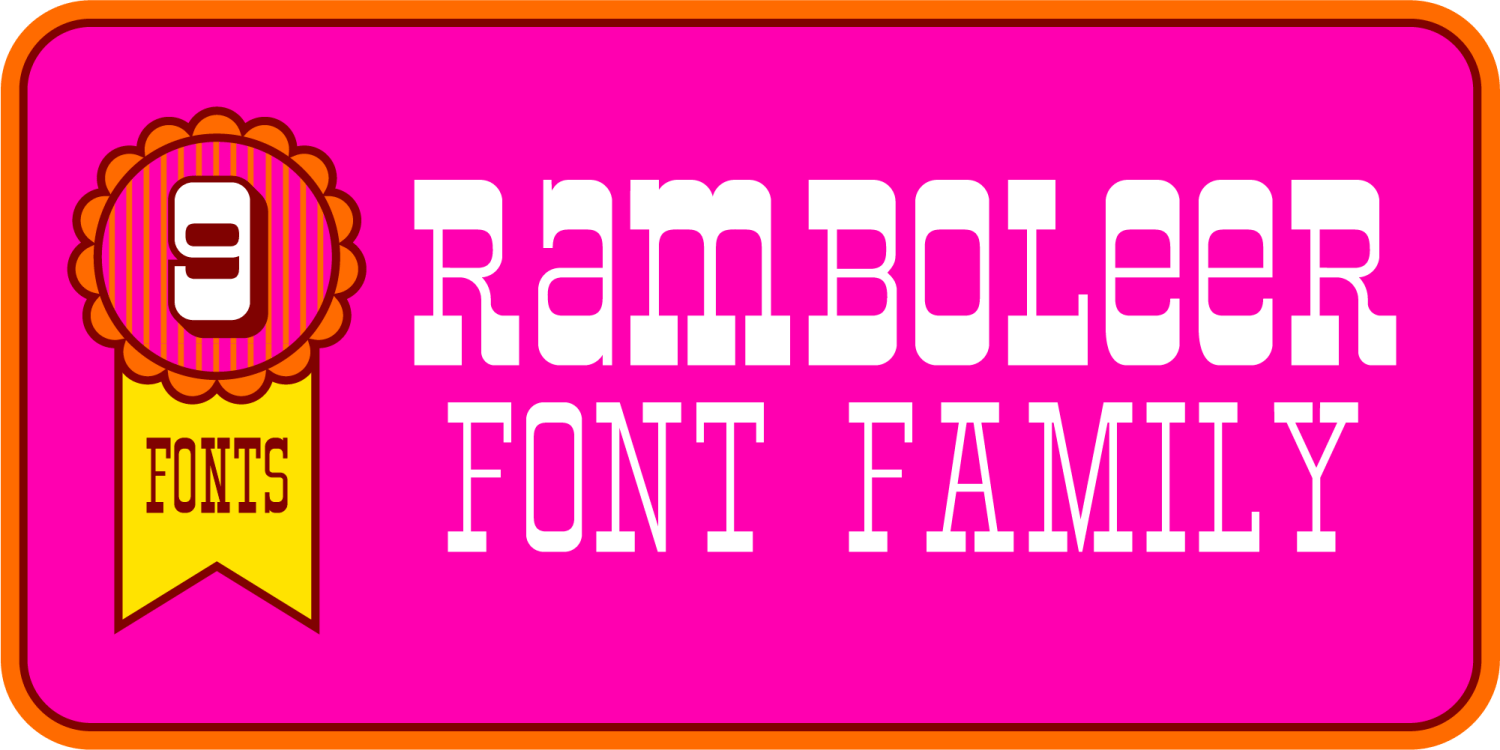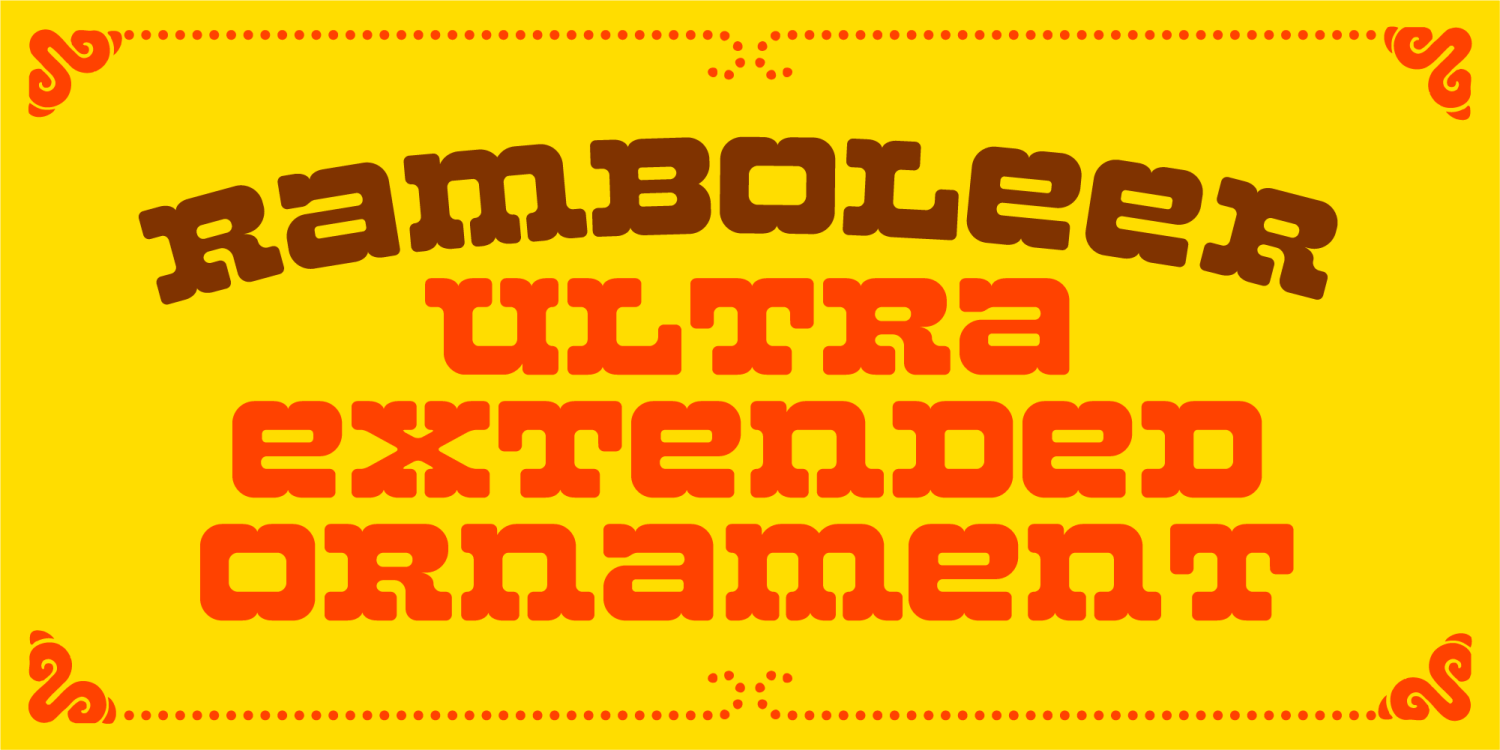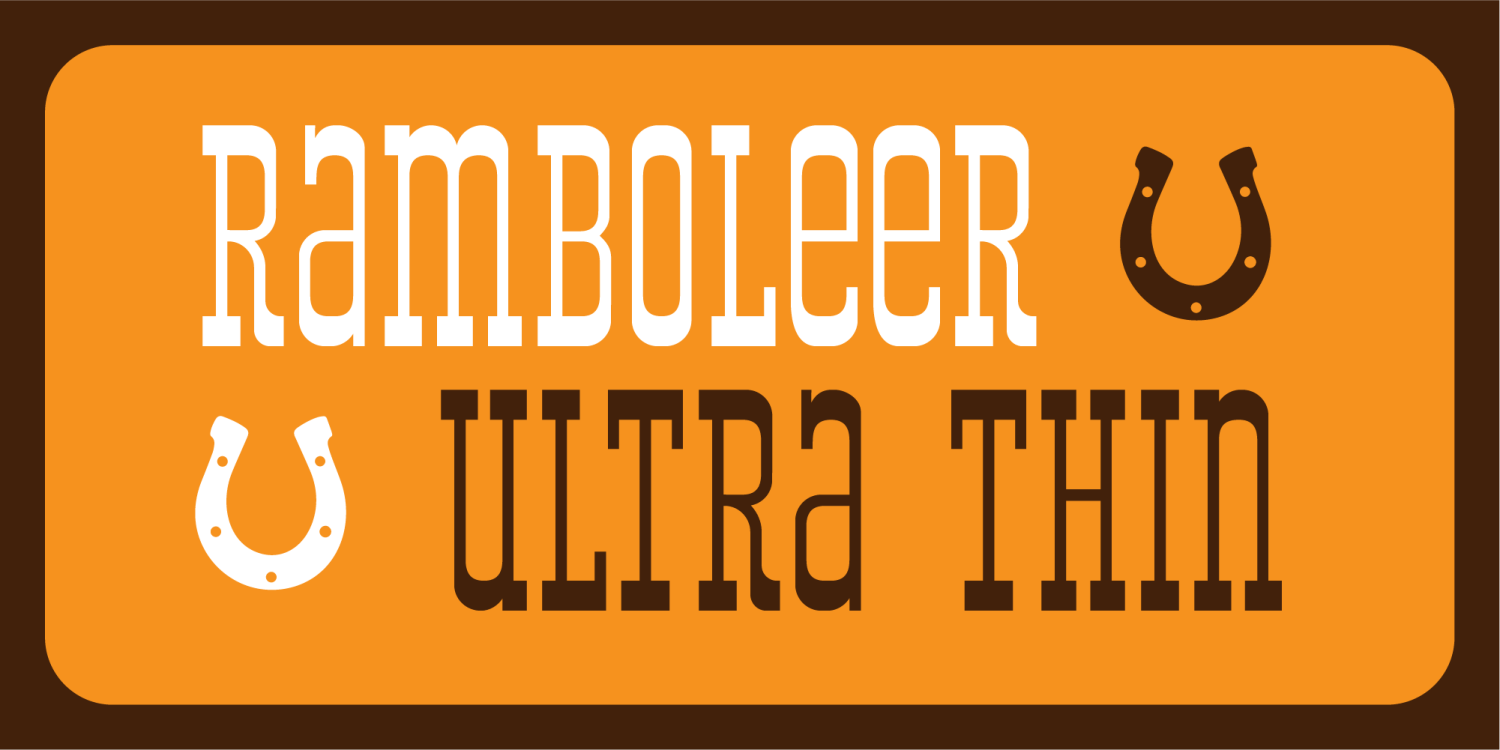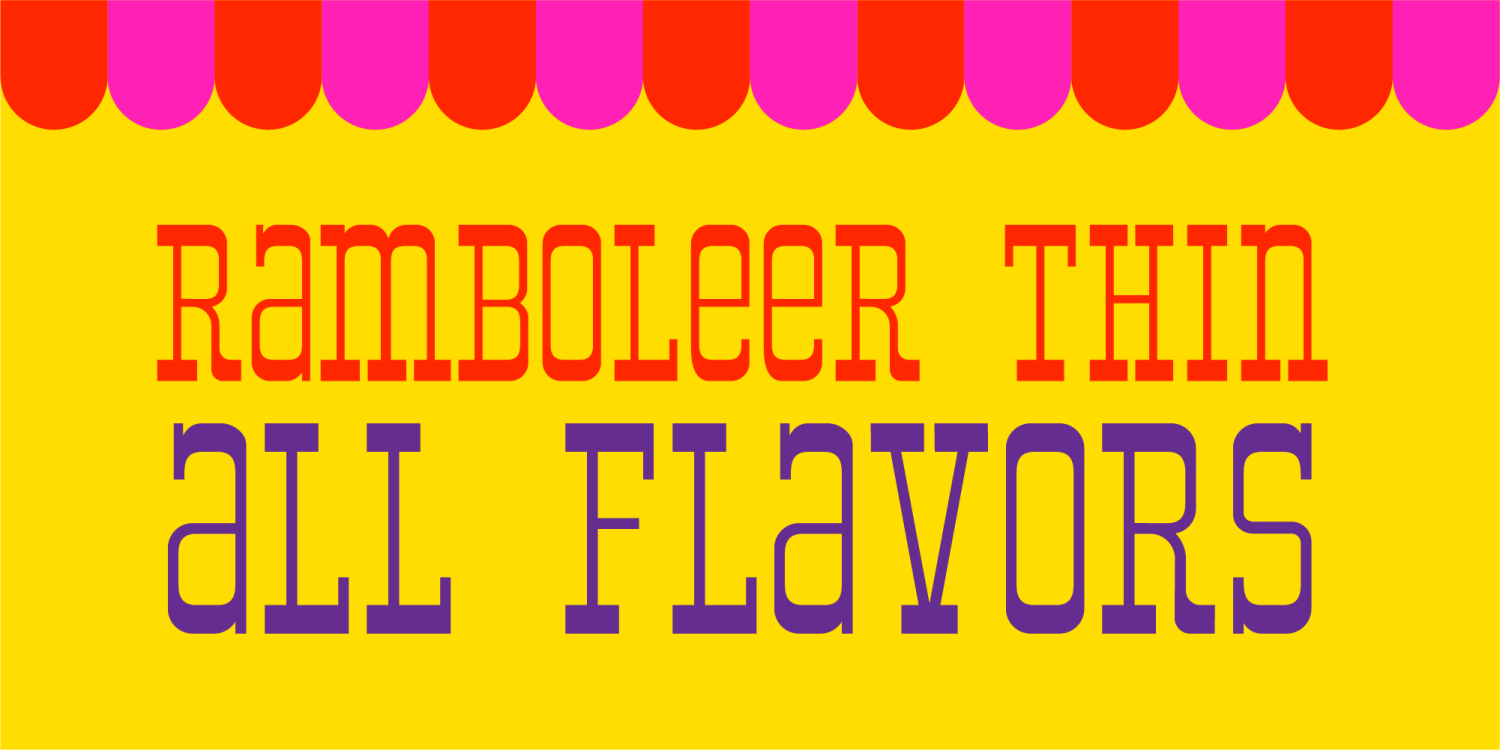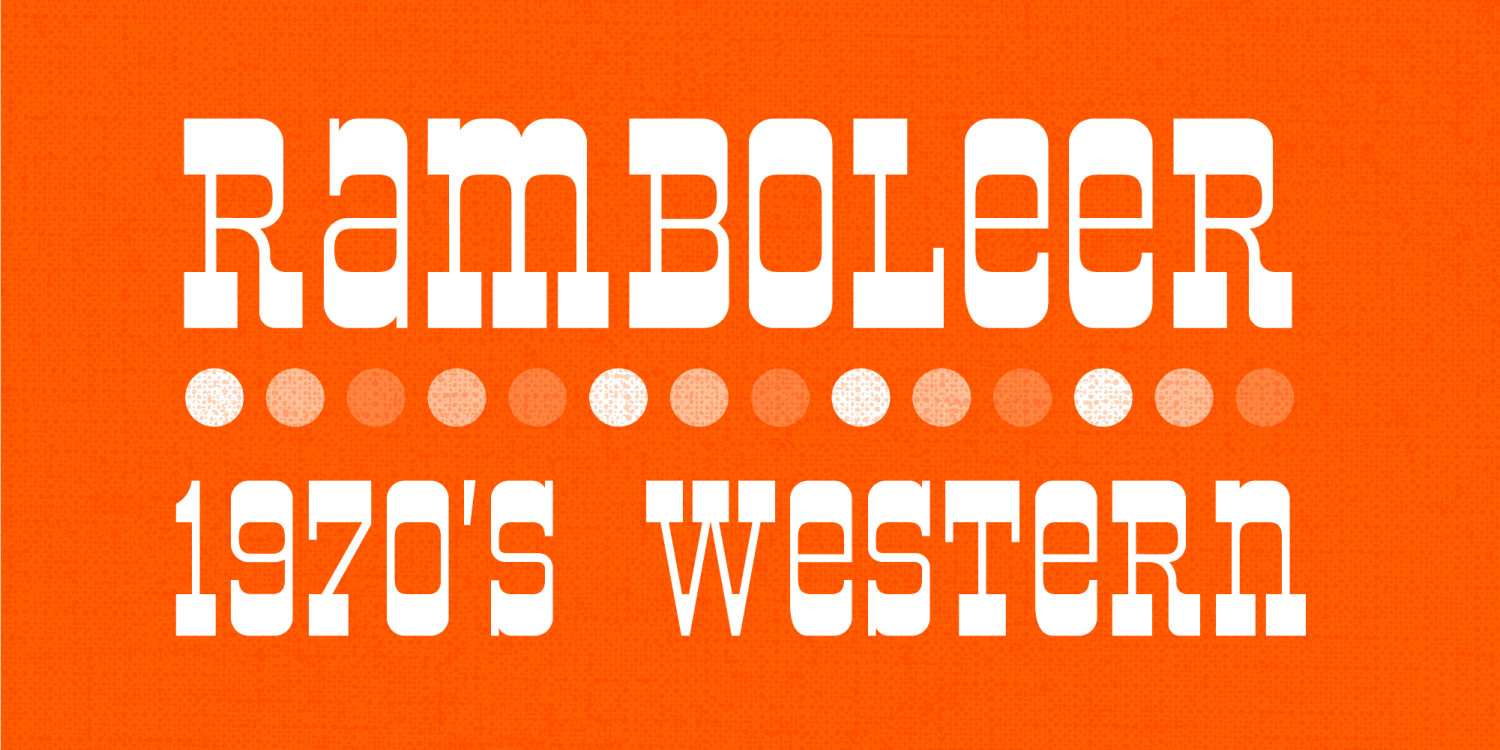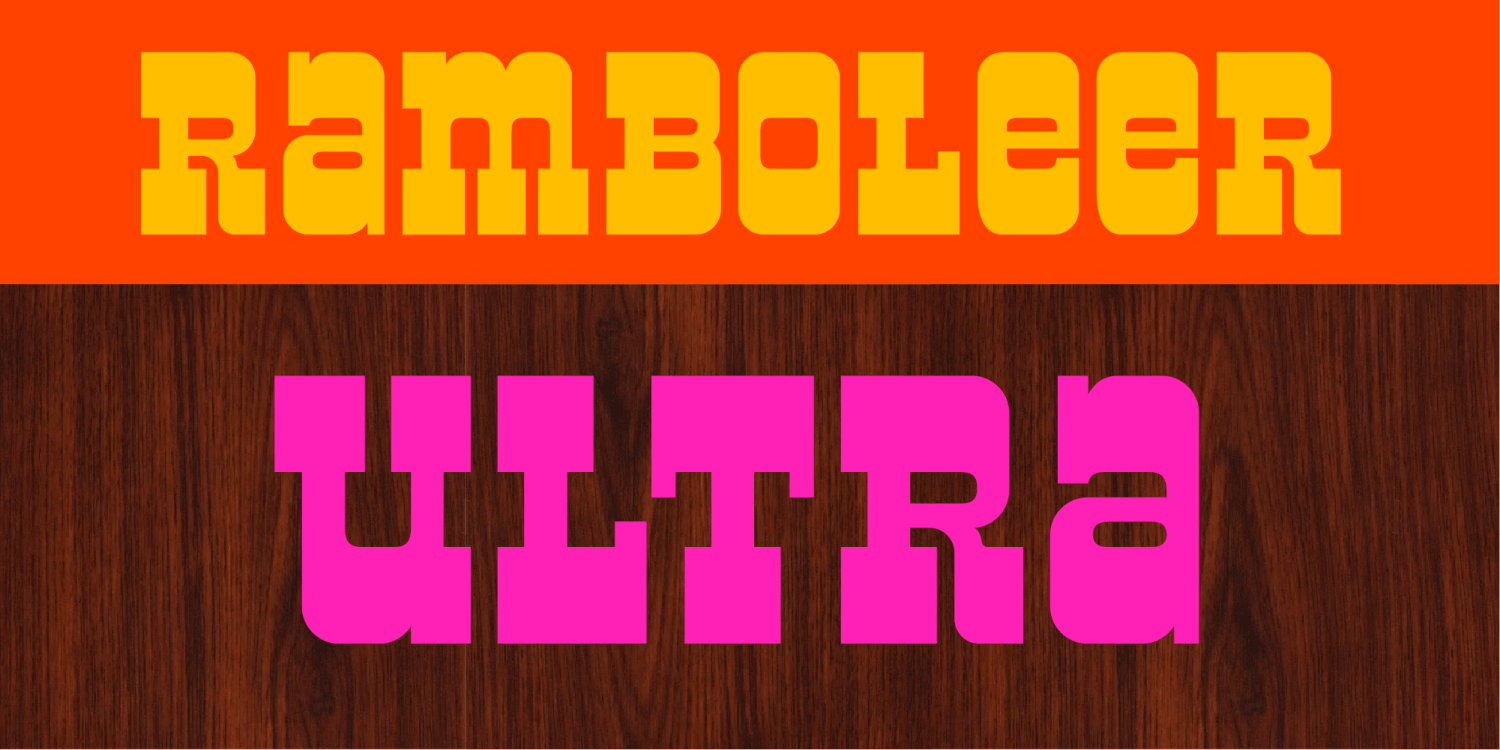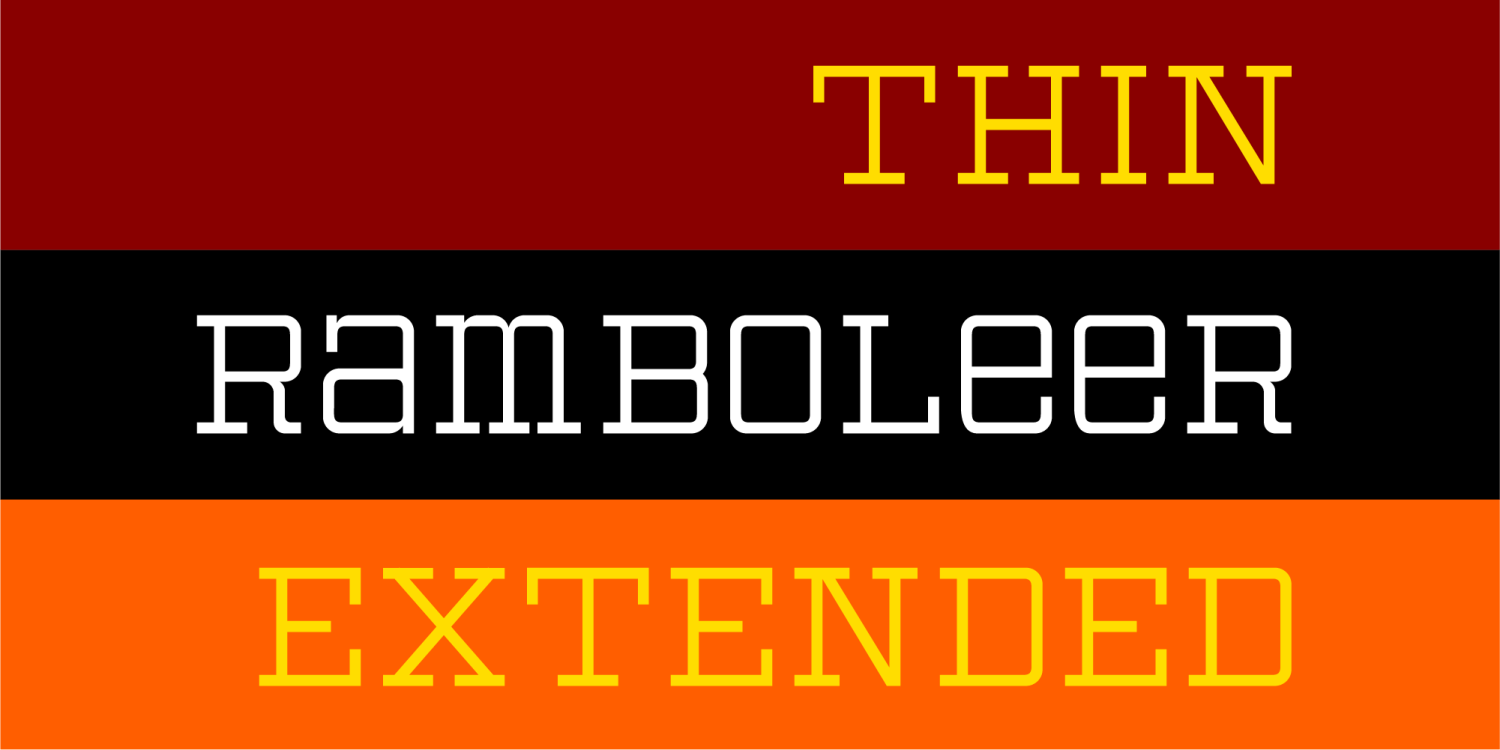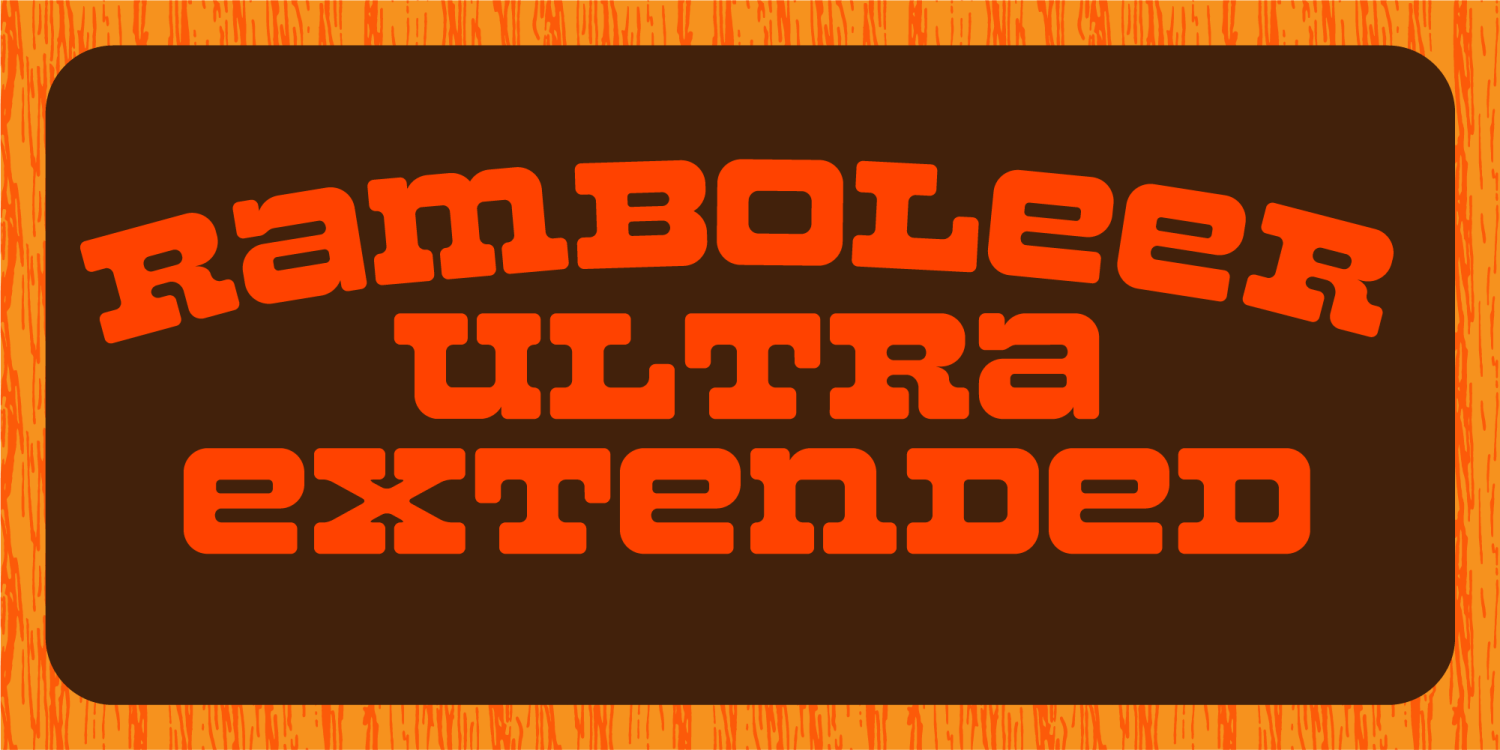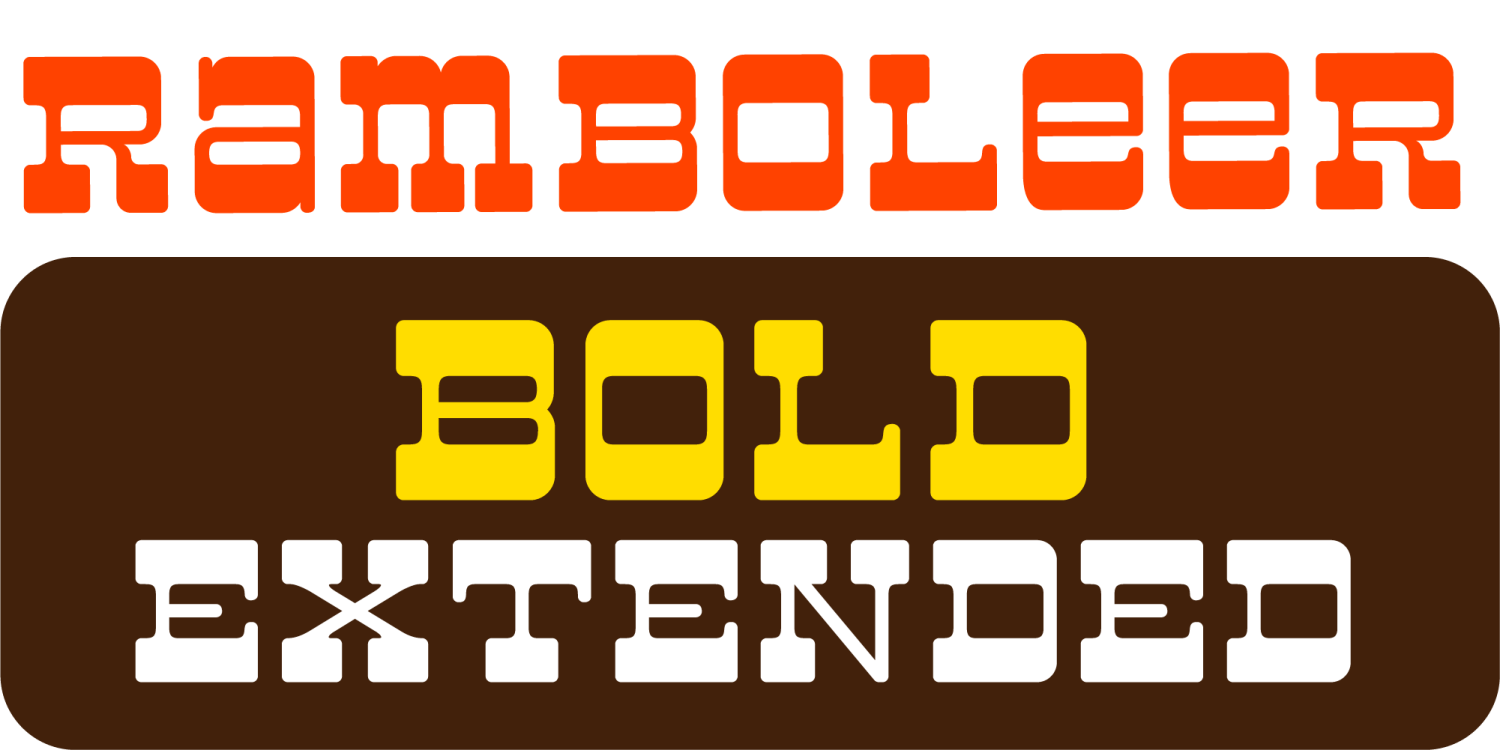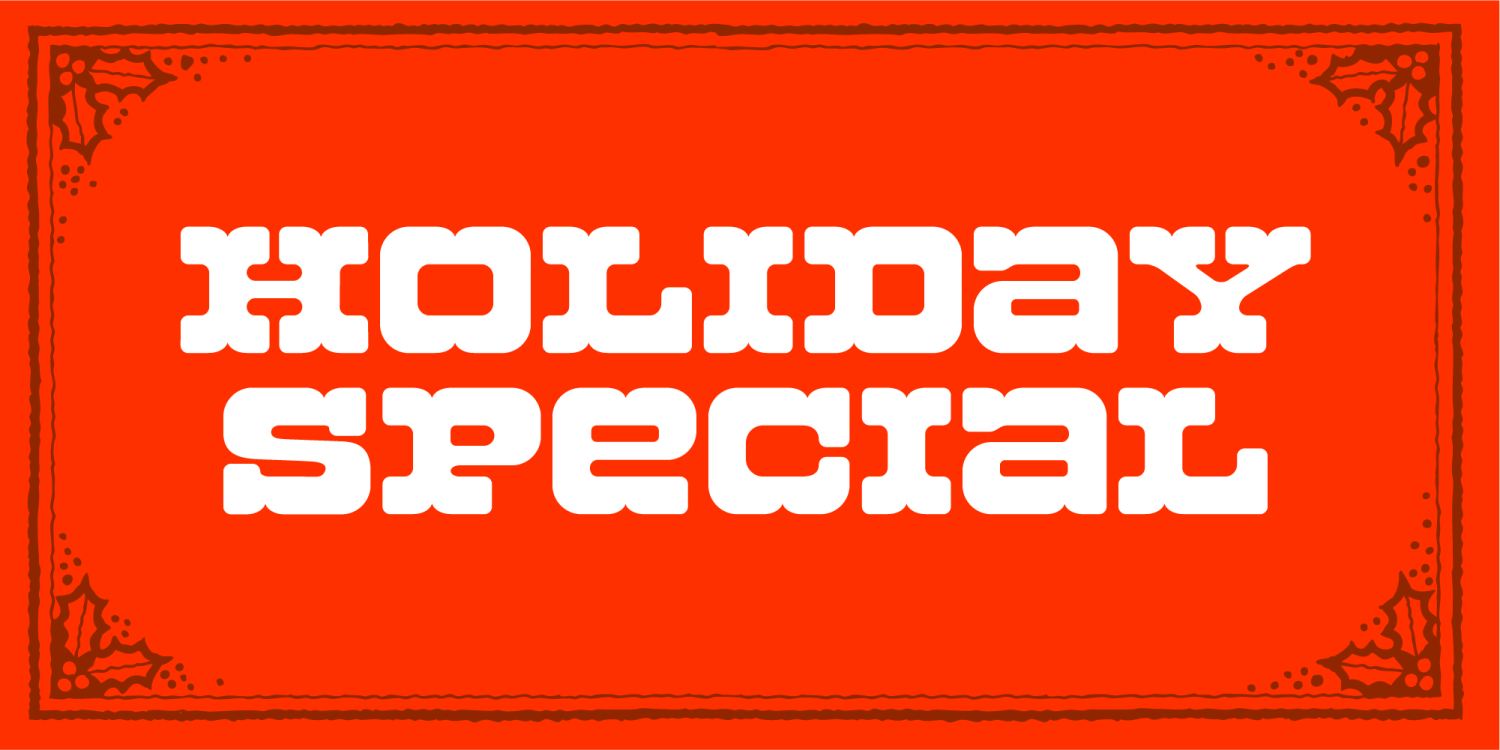
Step into the groovy saloons of typography with Ramboleer, the wild and woolly 1970s Western font that's as bold as a tumbleweed in a dust storm! Each letter slingshots across the page with a swagger that'd make a cowboy jealous, capturing the spirit of the disco desert with every stroke. Saddle up your designs and ride into the sunset of style with Ramboleer – where the Old West meets the funky freshness of the '70s!